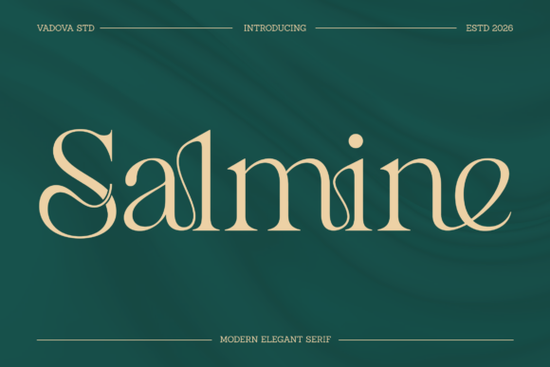
Salmine Font is a modern serif typeface that brings elegance and refinement to any project. If you're looking for a font that feels both timeless and fresh, Salmine delivers with its high-contrast strokes and smooth, flowing curves. It’s designed for creators who want a touch of luxury without sacrificing readability or versatility.
What makes Salmine Font stand out?
Unlike many serif fonts that lean too heavily into tradition, Salmine blends classic structure with contemporary flair. The letterforms are carefully crafted each curve intentional, each stroke balanced. This attention to detail gives it a polished look that works well in both digital and print formats.
One of the standout features is the inclusion of stylish ligatures. These subtle connections between letters add a refined layer to your text, especially when used in headlines, logos, or branding materials. Whether you're designing a wedding invitation or a boutique brand identity, these details make a noticeable difference.
Where can I use Salmine Font?
This font fits naturally into projects that aim for sophistication. Fashion brands often use it for packaging and lookbooks because it conveys quality and attention to detail. Beauty product labels benefit from its clean, upscale feel. Wedding stationery lovers appreciate how it adds grace to invitations and save-the-dates.
It also works well for personal portfolios and social media branding. If you’re a designer or creative freelancer building an online presence, Salmine helps create a professional image. Magazine editors might find it perfect for feature headlines or section dividers where impact matters.
How does Salmine compare to other serif fonts?
If you’ve explored similar fonts like Milkshake Family or Lovely Amelia, you’ll notice Salmine leans more toward luxury and formality. While Milkshake Family offers playful charm and friendly curves, Salmine feels more intentional and elevated. Compared to Lovely Amelia, which has a softer, hand-crafted vibe, Salmine is sharper and more structured.
For those who love bold statements but still want class, Regalic Miracle offers a dramatic contrast. But Salmine sits somewhere in between strong enough for headlines, delicate enough for elegant captions. It’s not just about looks; it’s about tone and context.
Why designers choose Salmine
Designers value fonts that work across multiple platforms and sizes. Salmine scales beautifully from tiny text on business cards to large banners. Its open letterforms prevent crowding, even at smaller sizes, making it practical for real-world applications.
It’s also a great choice if you're working on print-on-demand products. Whether you’re selling mugs, tote bags, or wall art, this font maintains clarity and style no matter the material. Plus, it pairs well with minimalist designs or richer backgrounds, giving you flexibility in layout.
- Use Salmine for high-end branding, especially in fashion and beauty
- Try it in wedding invites, thank-you cards, or event programs
- Pair it with clean sans-serif fonts for balance in mixed-type layouts
- Test it at different sizes to ensure legibility in small formats
Start by experimenting with a single word your name, a logo tagline, or a favorite quote. See how Salmine transforms simple text into something memorable. It’s not just a font; it’s a tool for expressing tone and intention in your work.